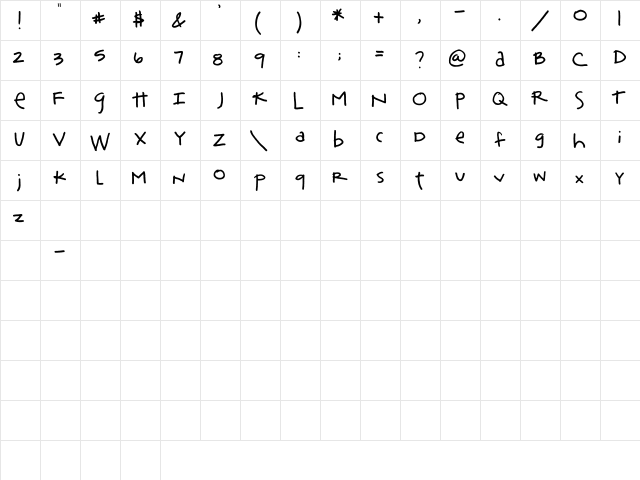
2Peas Rock Star 2Peas Rock Star Font Preview
2Peas Rock Star 2Peas Rock Star
2Peas Rock Star 2Peas Rock Star Font Details
Design Context for 2Peas Rock Star Typeface
2Peas Rock Star is a composed and adaptable typeface that performs quietly and consistently across a wide range of design contexts.